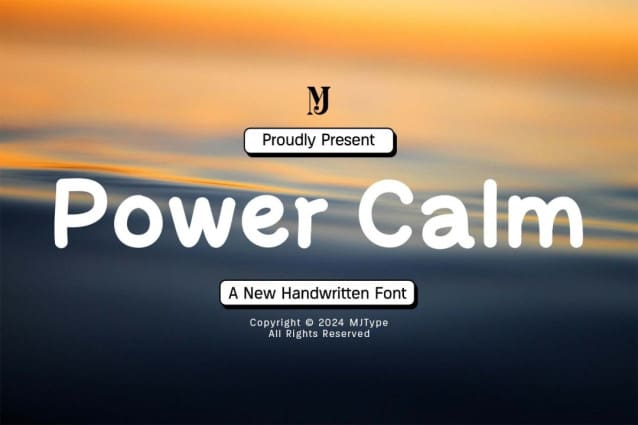
Power Calm Font
Power Calm Font, is a simple comic handwritten font with a unique style. Get inspired by its unique charm, and turn any design project into a true standout!